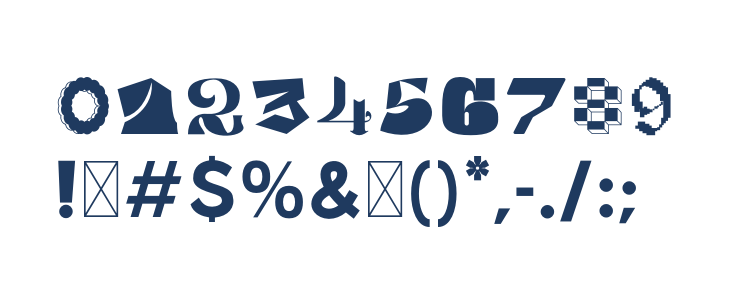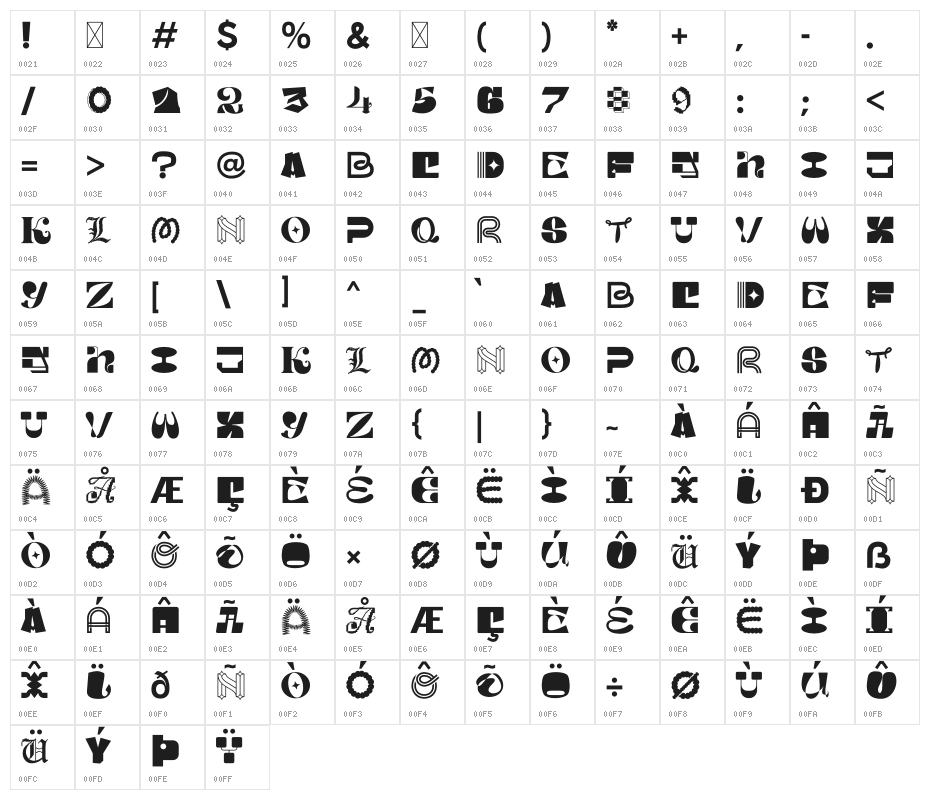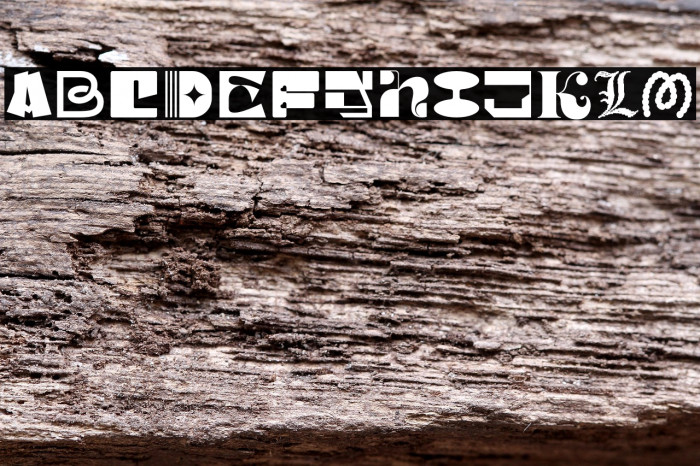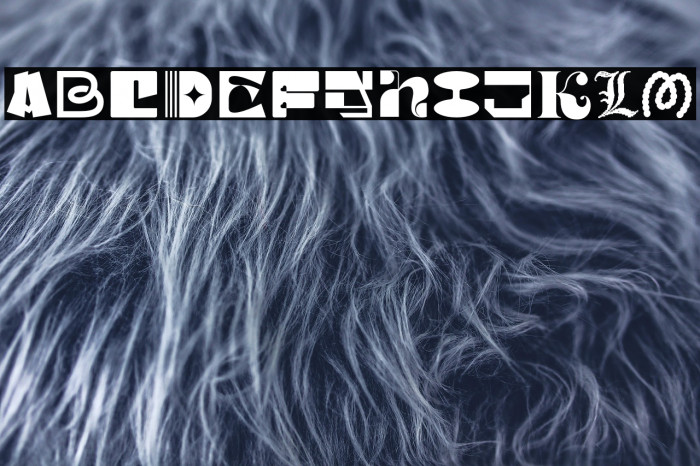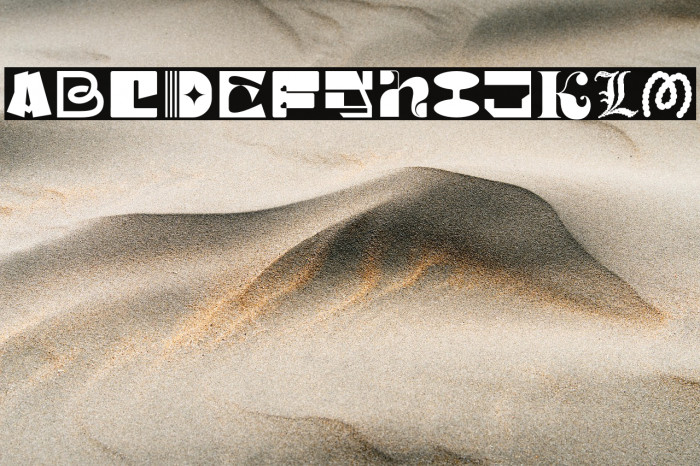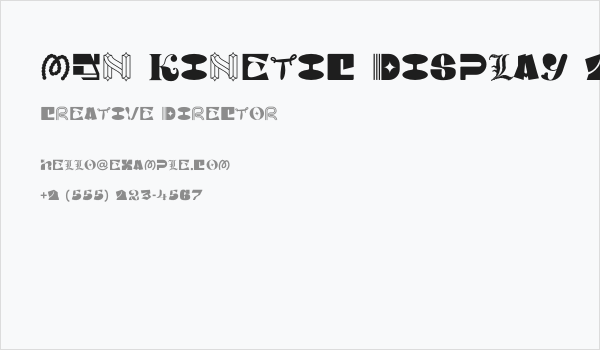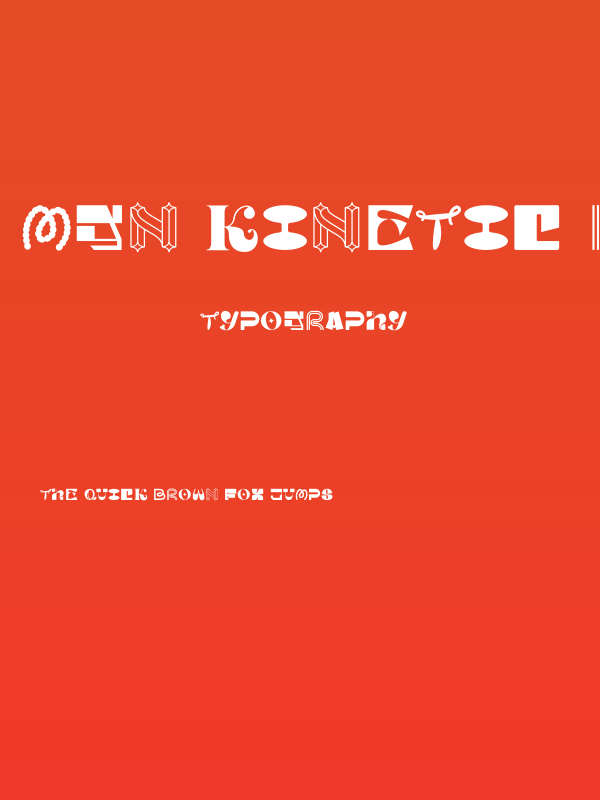
MGN Kinetic Display 1 Font
MGN Kinetic Display 1 Description
This font is a bold and dynamic display typeface that features a variety of unique and artistic letterforms. Each character is crafted with distinct geometric shapes and patterns, creating a visually striking and eclectic appearance. The uppercase letters are particularly bold, with some incorporating stripes, dots, and other decorative elements, while the lowercase letters maintain a consistent style. Numbers and special characters are equally creative, with some resembling abstract art pieces. This font is designed to capture attention and make a statement, making it ideal for creative and unconventional design projects.
| Proposed Projects | Ideal for posters, album covers, branding, and any project requiring a bold, artistic touch. |